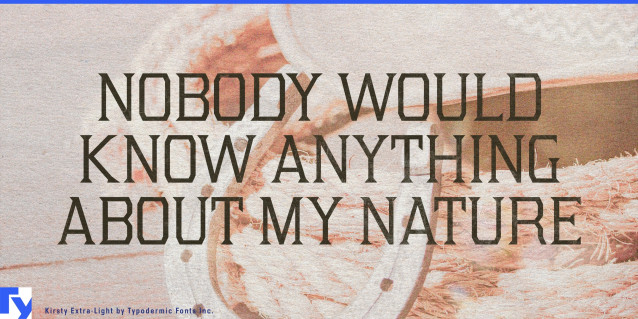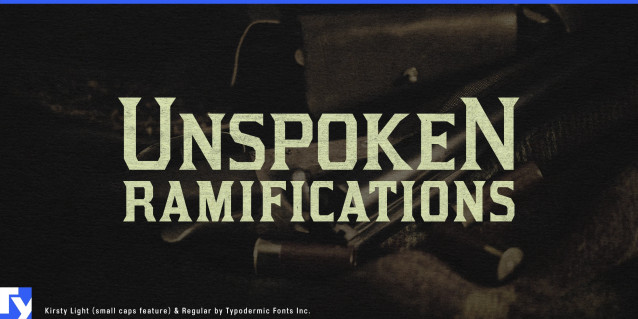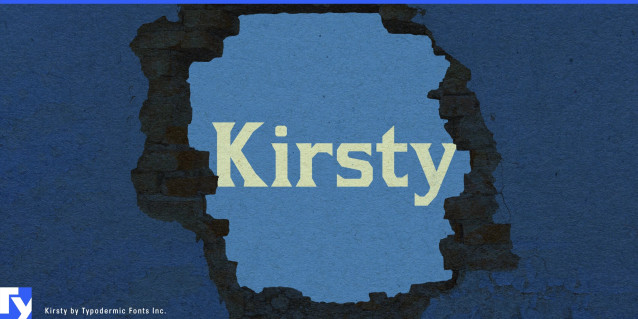
Kirsty Font
American heritage food branding has a familiar problem. Reach too quickly for a cowboy slab and the label starts looking like a saloon sign; add rustic script and it can drift into generic handmade territory. Kirsty offers another route. Its angular, sturdy forms suggest old commercial lettering, railway signs, roadside businesses, and regional packaging without going fully Western.
That makes Kirsty especially useful for premium pantry products with strong regional or process-driven identities. Barbecue sauces, hot sauces, steak sauces, mustard, hot honey, marinades, dry rubs, pickles, relishes, smoked salts, fermented condiments, jerky, preserves, and regional spice blends can use it for brand names, product lines, flavors, heat levels, and short label copy. It carries enough American vernacular character to support smoke, fire, fermentation, preservation, and traditional recipes without turning the package into period costume.
Contemporary barbecue, smokehouse, wood-fire, and regional restaurants offer the same opportunity at a larger scale. Chef-led barbecue groups, live-fire restaurants, modern roadhouses, Southern restaurants, wood-fired grill concepts, and destination smokehouses can use Kirsty across exterior names, menus, wall graphics, sauce labels, catering materials, merchandise, and packaged retail products.